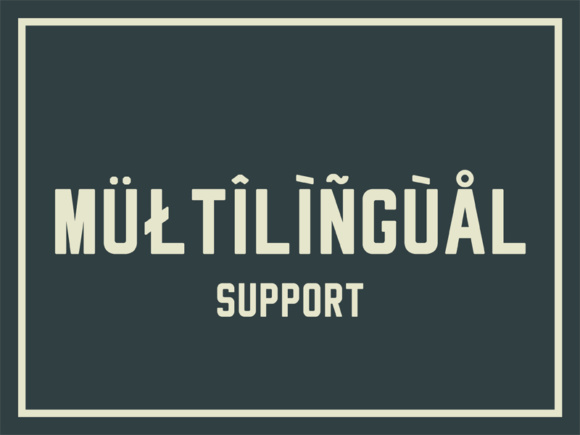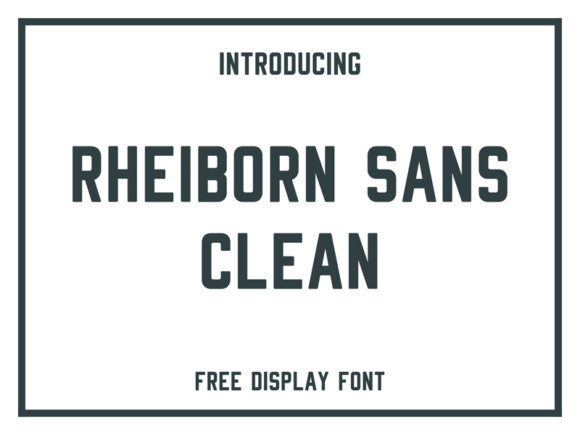
Rheiborn
About Rheiborn Font
The Rheiborn Sans is a bold display typeface. It has clean letters with a good readability. It is perfect for every design that needs a striking look.